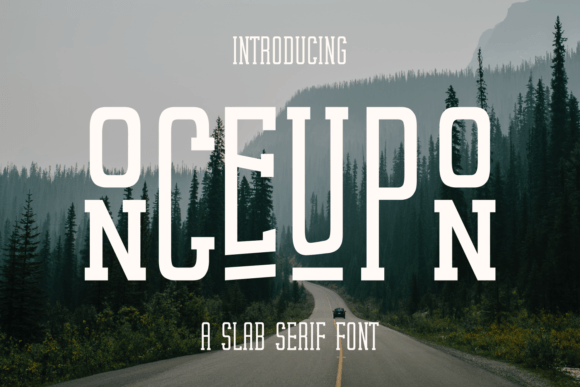
Introducing Onceupon Font, the ultimate choice for all your sports apparel design needs. This bold and assertive slab serif font, created by the talented font designer Damai from 7NTypes, is guaranteed to make your designs stand out from the crowd.
Whether you're designing team jerseys, workout gear, or even sports-inspired logos, Onceupon Font is the perfect companion to bring your vision to life. Its strong and commanding presence on any design will capture the attention of both athletes and sports enthusiasts alike.
With Onceupon Font in your collection, you gain access to a versatile tool that can transform ordinary designs into extraordinary masterpieces. Its unique slab serif style adds a touch of professionalism and strength, making it ideal for sports-related projects. The font's versatility allows it to adapt seamlessly to various design themes, ensuring that it will always be an excellent choice, regardless of the topic.
This font is not just about aesthetics; it also delivers a powerful emotional impact. The bold and assertive nature of Onceupon Font conveys determination, motivation, and a winning mindset. It evokes a sense of passion and excitement, inspiring athletes and fans alike to push their limits and strive for greatness.
Onceupon Font is specifically crafted to cater to the needs of sports apparel designers. Its captivating presence ensures that your designs will never go unnoticed, while its keyword-rich nature guarantees improved search engine visibility. By incorporating this font into your designs, you are not only creating visually striking pieces but also optimizing your chances of attracting potential customers who are actively looking to buy.
From jerseys to gym wear, Onceupon Font will add that extra edge to your sports apparel designs. It's time to unleash your creativity and take your sports-themed projects to new heights. Join the league of successful designers who have already embraced the power of Onceupon Font and witness the transformation it brings to your work.